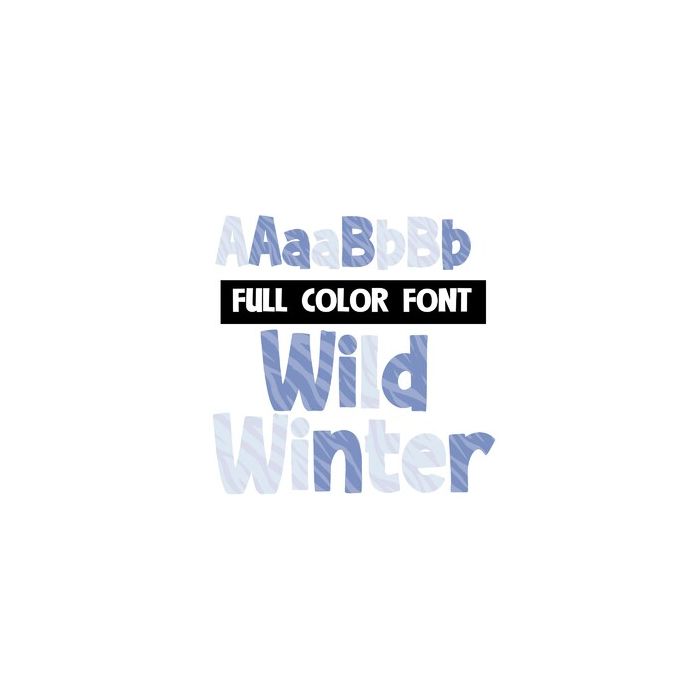
This full-color font features a winter-palette in a wild tiger designer. There is an alt version of the upper and lowercases you can access through your system or Silhouette's glyph map.